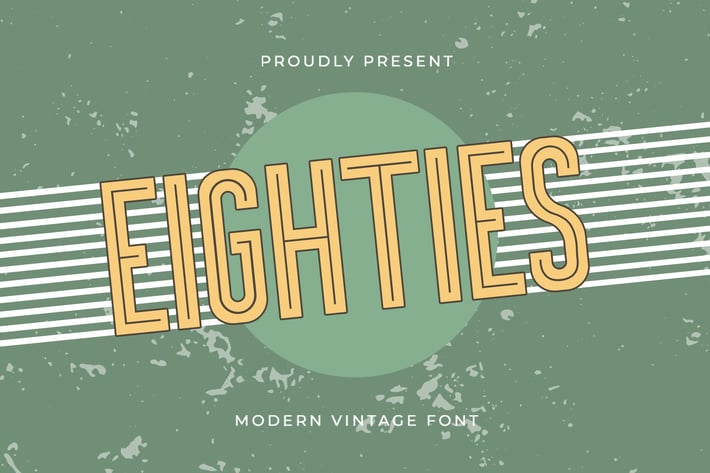
Eighties - Modern Vintage Font
Introducing "Eighties," a modern vintage font that captures the iconic style of the 1980s while infusing it with a contemporary twist. Perfect for graphic designers, typographers, and creatives looking to bring a touch of retro charm to their projects, Eighties offers a distinctive typeface that stands out with its nostalgic yet fresh aesthetic.
Ideal for posters, logos, album covers, apparel, and branding, Eighties’ bold and vibrant characters provide a dynamic and eye-catching visual appeal. Each letter is meticulously crafted to reflect the essence of the 80s while ensuring modern readability and impact, making your designs both memorable and stylish.
The "Eighties" font includes a complete set of uppercase and lowercase letters, numbers, punctuation marks, and special characters. This versatile set ensures seamless integration into various design projects, from nostalgic branding to trendy promotional materials.
Revive the spirit of the 80s with Eighties, the modern vintage font that blends retro charm with a contemporary edge.
Introducing "Eighties," a modern vintage font that captures the iconic style of the 1980s while infusing it with a contemporary twist. Perfect for graphic designers, typographers, and creatives looking to bring a touch of retro charm to their projects, Eighties offers a distinctive typeface that stands out with its nostalgic yet fresh aesthetic.
Ideal for posters, logos, album covers, apparel, and branding, Eighties’ bold and vibrant characters provide a dynamic and eye-catching visual appeal. Each letter is meticulously crafted to reflect the essence of the 80s while ensuring modern readability and impact, making your designs both memorable and stylish.
The "Eighties" font includes a complete set of uppercase and lowercase letters, numbers, punctuation marks, and special characters. This versatile set ensures seamless integration into various design projects, from nostalgic branding to trendy promotional materials.
Revive the spirit of the 80s with Eighties, the modern vintage font that blends retro charm with a contemporary edge.